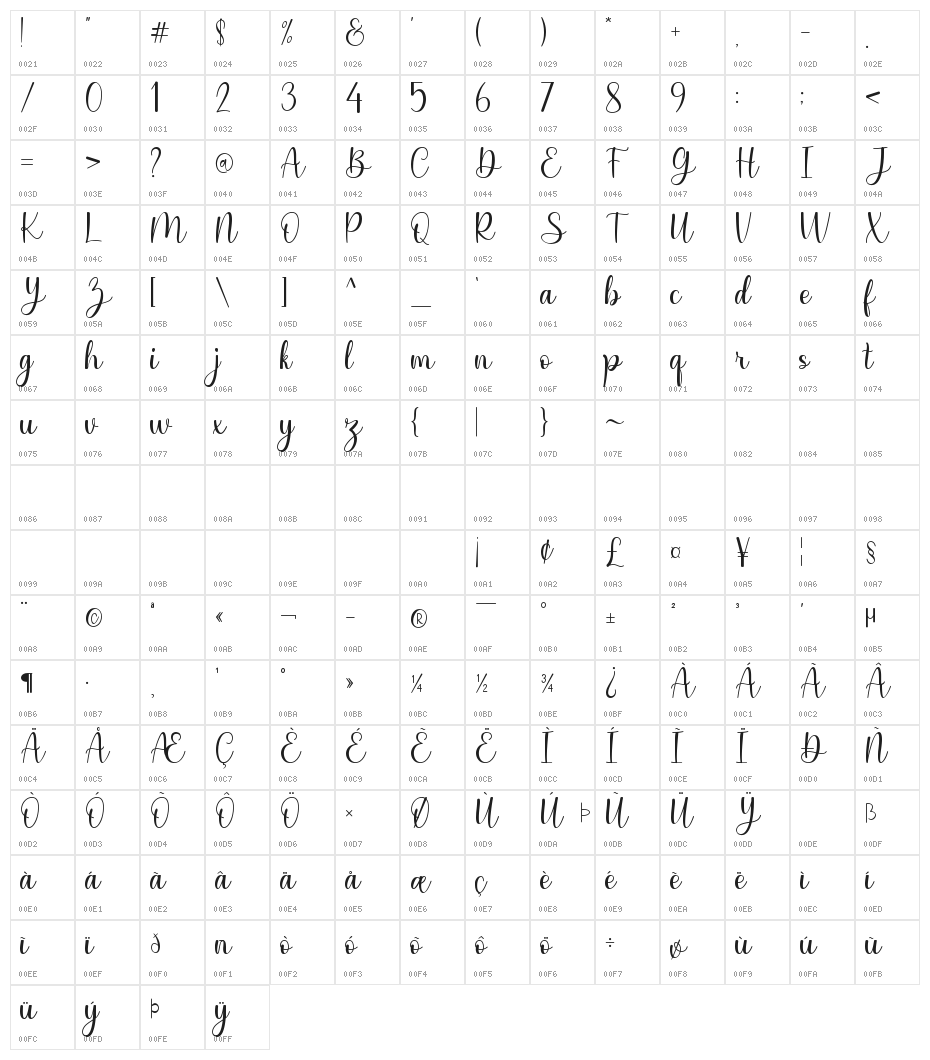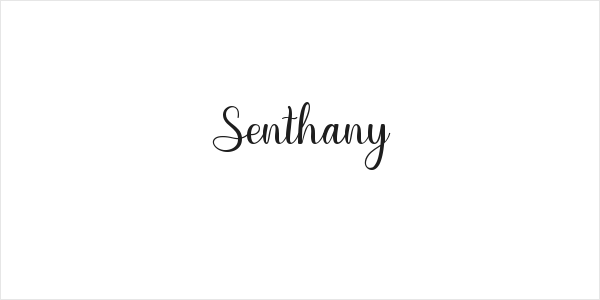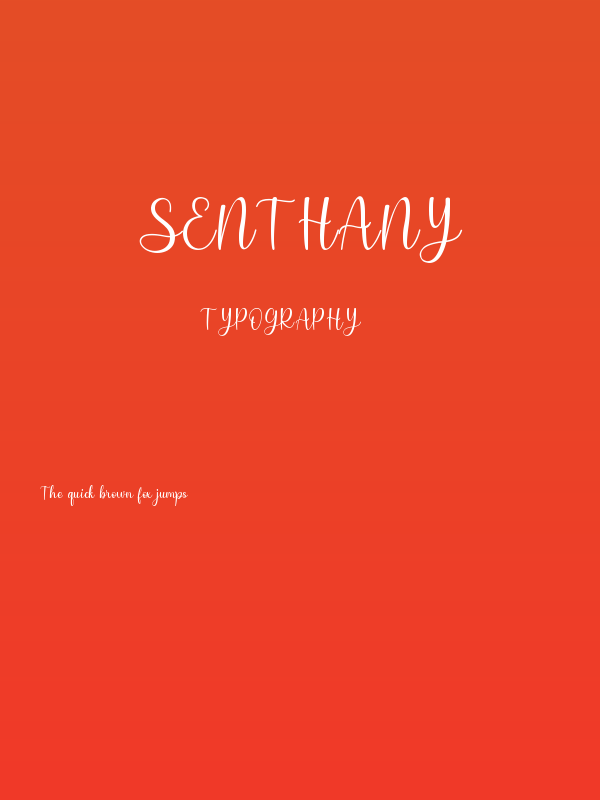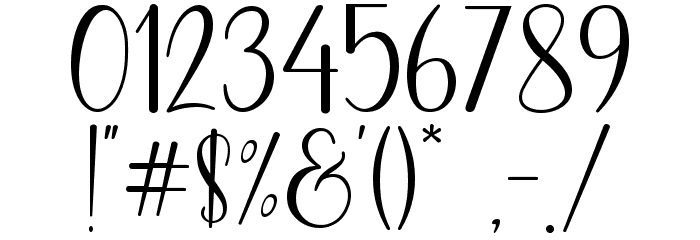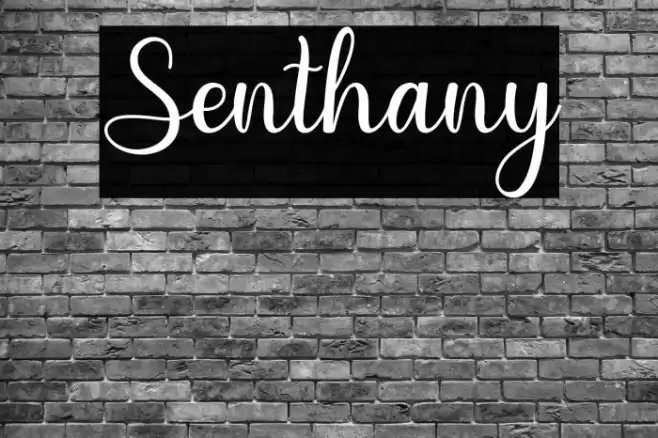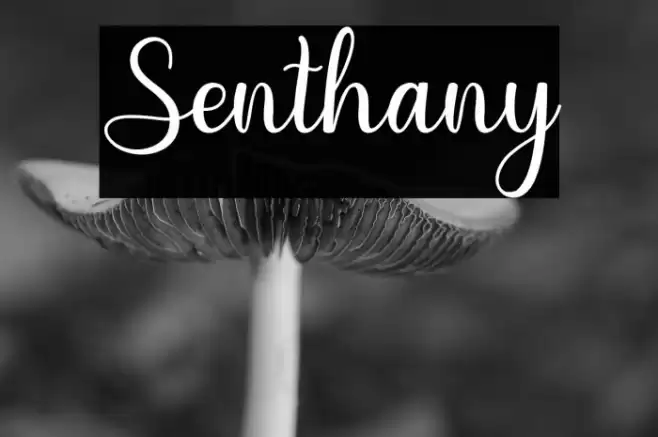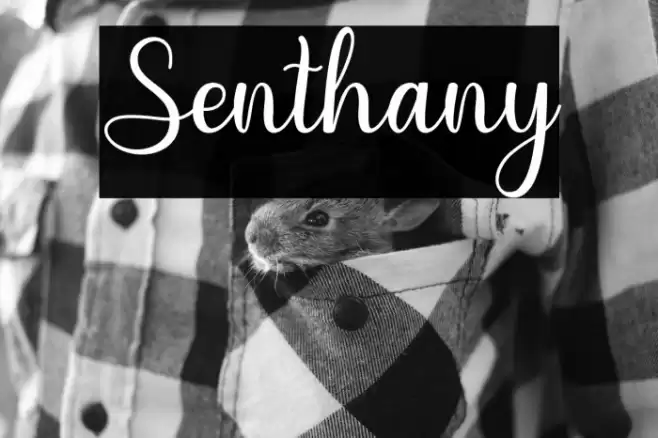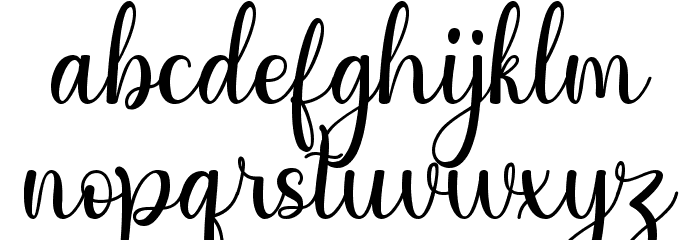
Senthany Font
Senthany Description
This font features a playful and elegant script style with a handwritten appearance. The uppercase letters are characterized by smooth, flowing lines and a slight slant, giving them a dynamic and lively feel. The lowercase letters maintain a consistent style, with rounded forms and graceful loops that enhance the font's overall charm. The numerals are clear and legible, matching the style of the letters with their own unique flair. Special characters are thoughtfully designed to complement the alphabet, ensuring versatility in various design contexts. The font's overall aesthetic is both modern and whimsical, making it suitable for creative projects that require a personal touch.
| Overall Style | Modern, Whimsical |
| Use Case | Headlines, Invitations, Branding |
| Proposed Projects | Ideal for wedding invitations, greeting cards, branding, and social media graphics. |